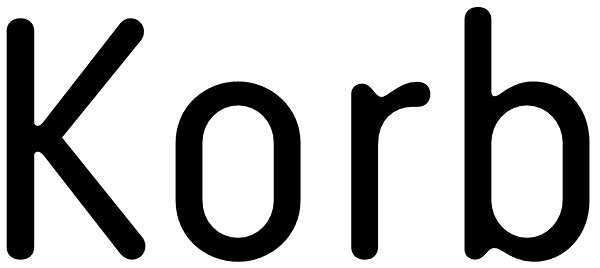
Korb
Korb is a rounded sans serif family of four styles. It features a narrow geometric construction inspired by DIN letter shapes along with more unusual details like open counters and smooth connections between shoulders and stems. This makes the...
Korb
Korb Bold
Korb Italic
Korb Bold Italic